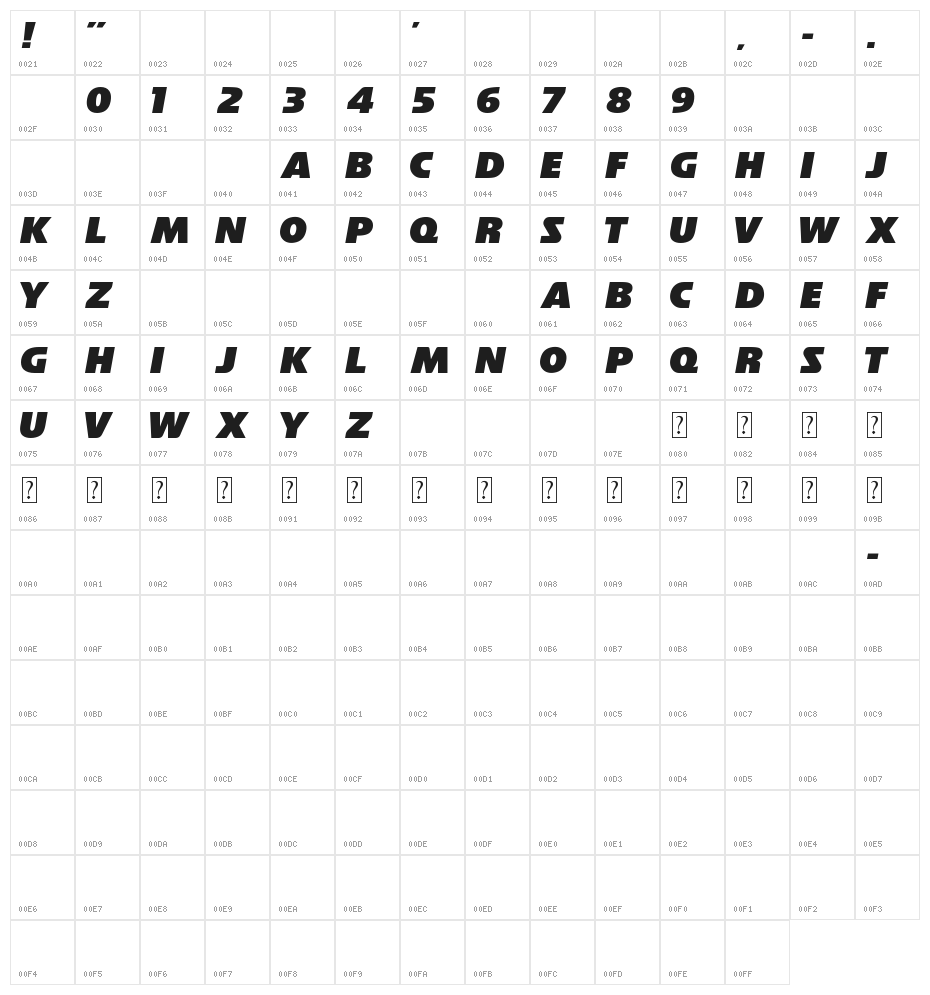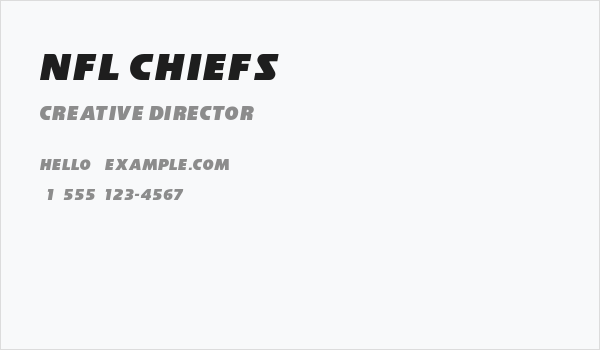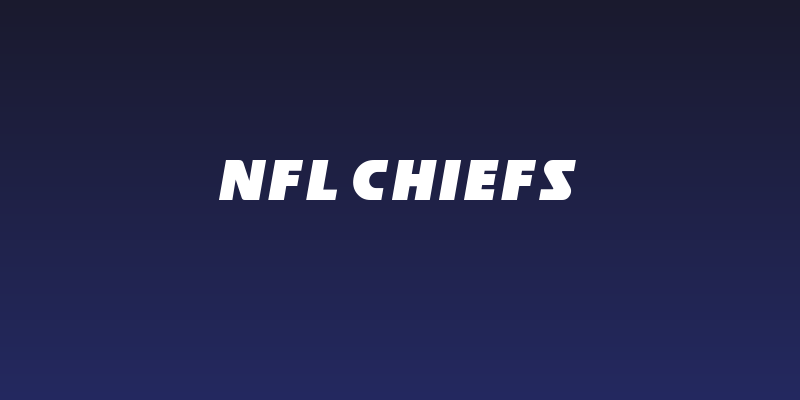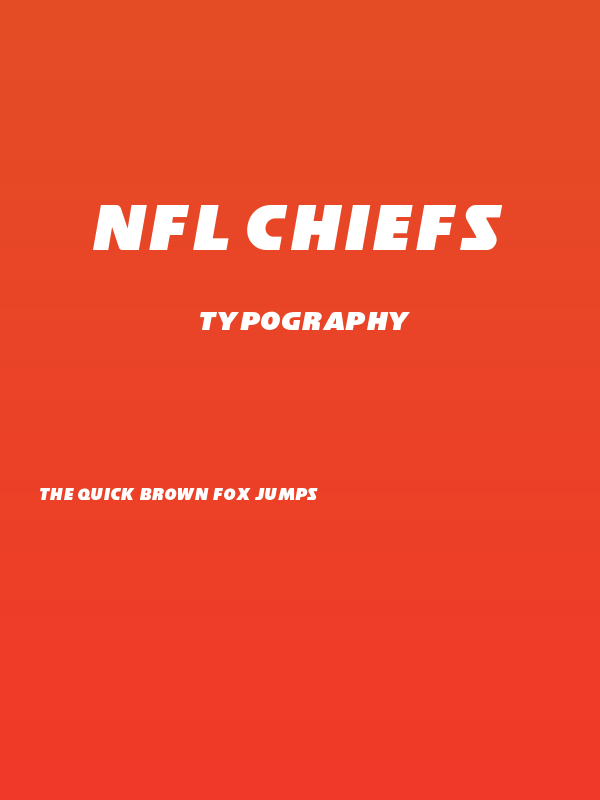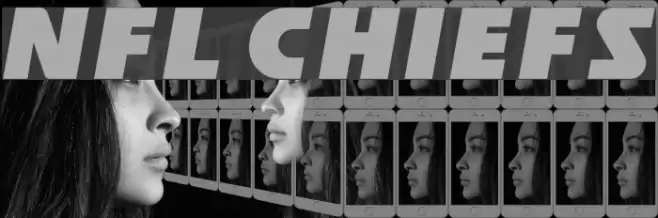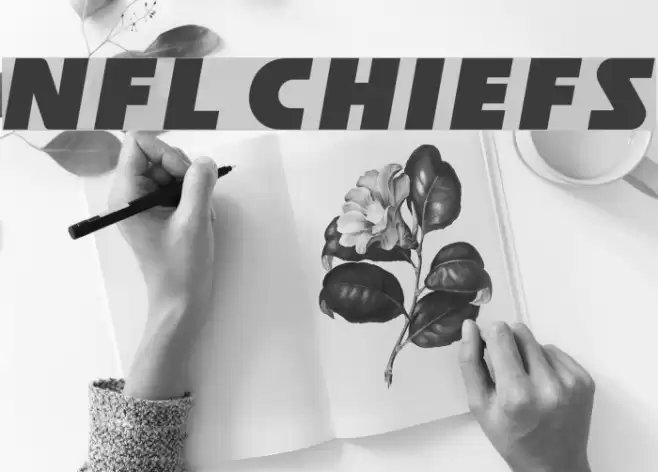
NFL Chiefs Font
NFL Chiefs Description
This font features bold, uppercase letters with a strong, athletic presence. The characters are slightly italicized, giving a sense of motion and energy. The strokes are thick and consistent, providing a robust and impactful appearance. The numbers and special characters maintain the same boldness, ensuring uniformity across all glyphs. This font is ideal for conveying strength and dynamism, making it suitable for sports-related designs or any project requiring a powerful visual impact.
| Proposed Projects | Ideal for sports branding, team logos, merchandise, and dynamic headlines. |